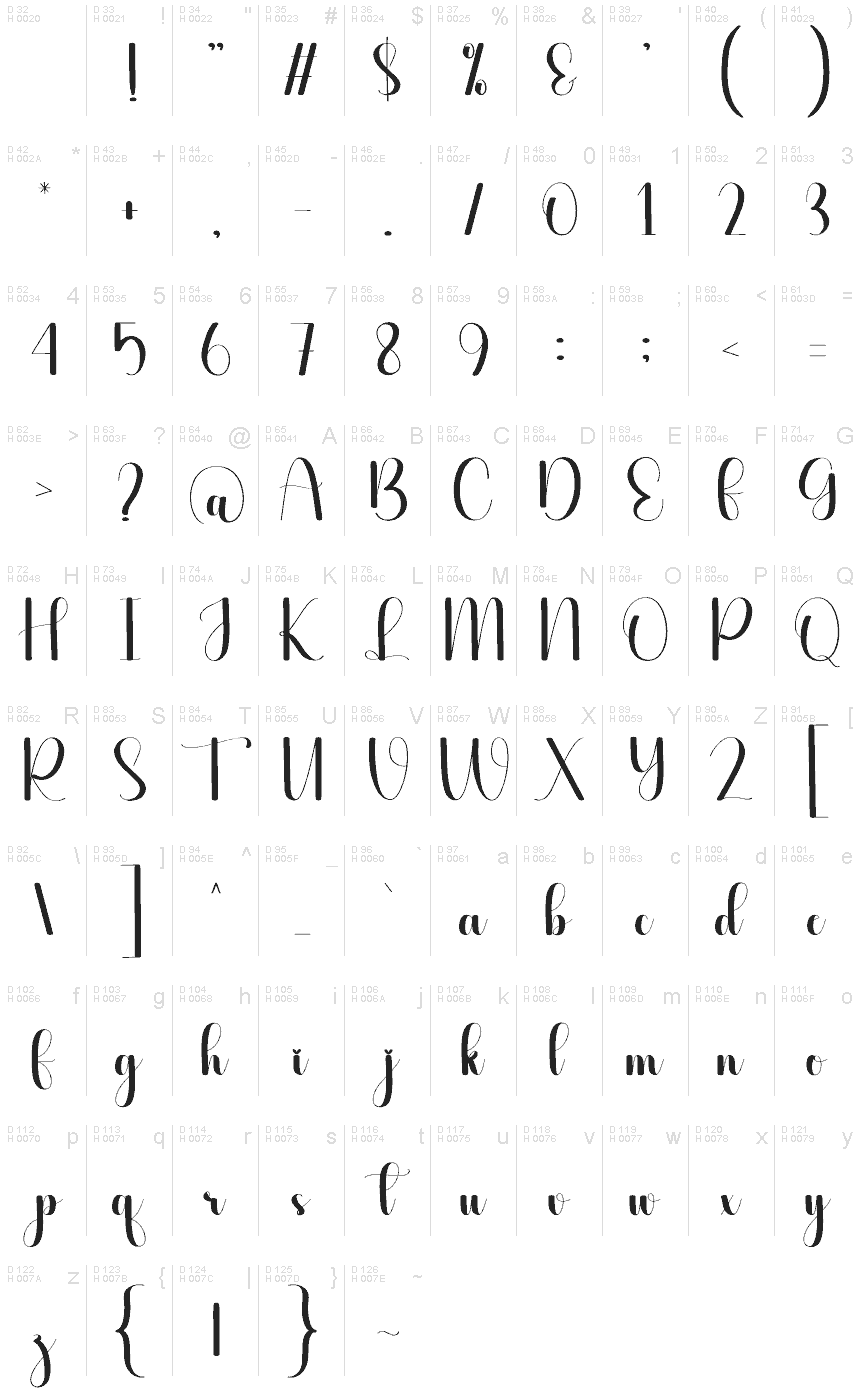
Tangible
Tangible font by Scratchones is a decorating calligraphy font with flowing yet elegant characters. The author manages to provide a sophisticated and charming aesthetic ideal for both formal and non-formal private or commercial applications. Designing modern-day projects will be exceptionally unique, especially when viewers recognize the historical references of classic calligraphy.
Bring value to wedding invitations, luxury boutiques branding, artistic illustrations, greeting cards, photo-taking posters, and even social media posts. This free calligraphy font might bring a stylistic change in formal documents such as invitation cards for funerals or posts regarding historic events.